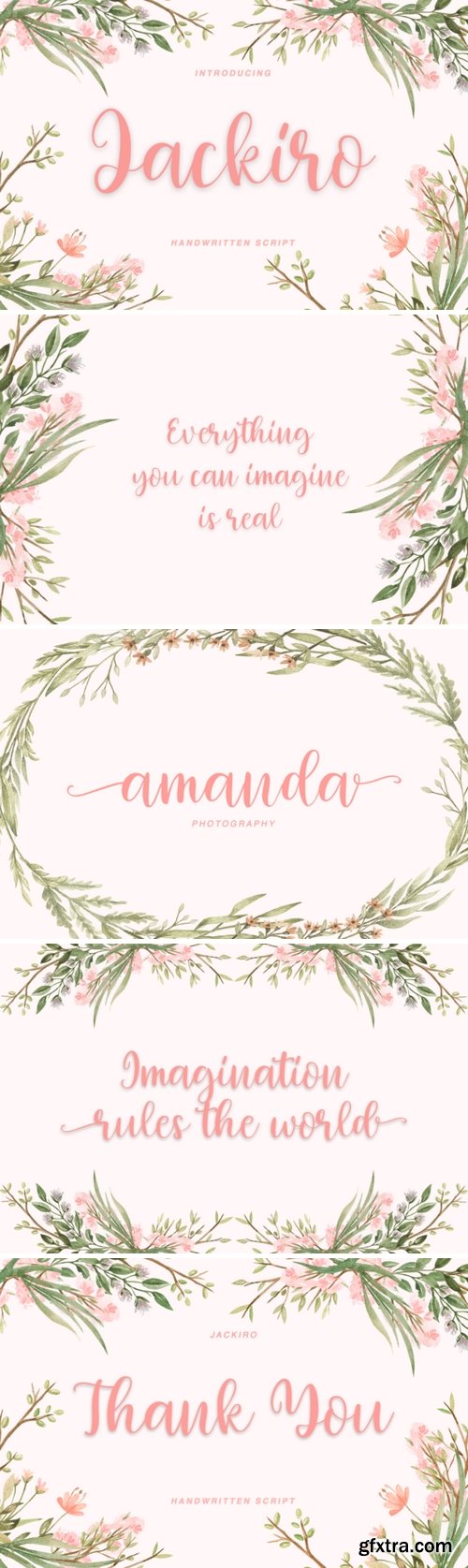
Jackiro - a new fresh handmade calligraphy font. Very suitable for greeting cards, branding materials, business cards, quotes, posters, and more!This font are perfect for wedding postcard. Or you can create perfect and unique design of your logo, blog, stationery, marketing, magazines and more :)